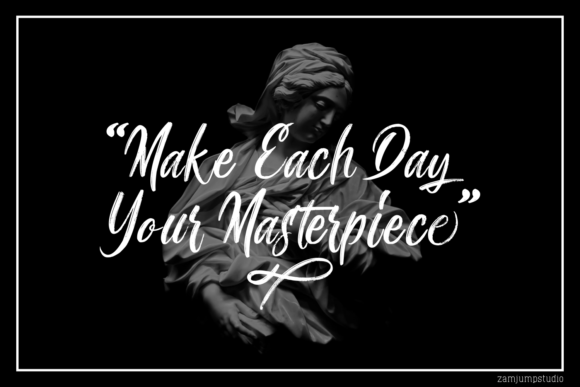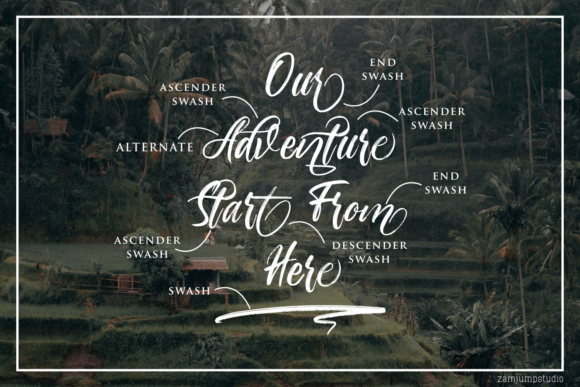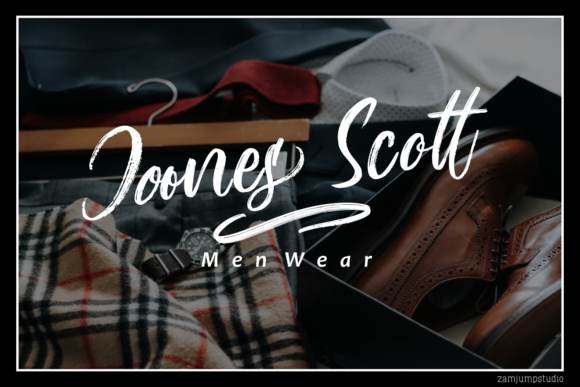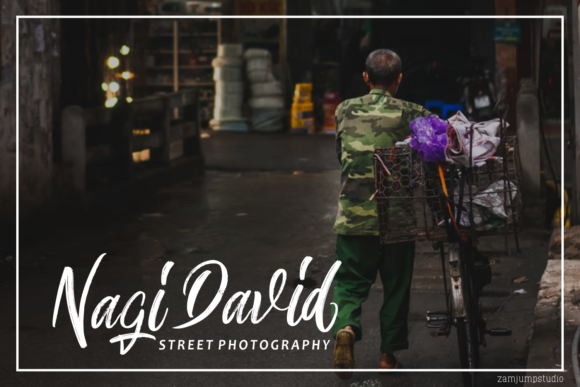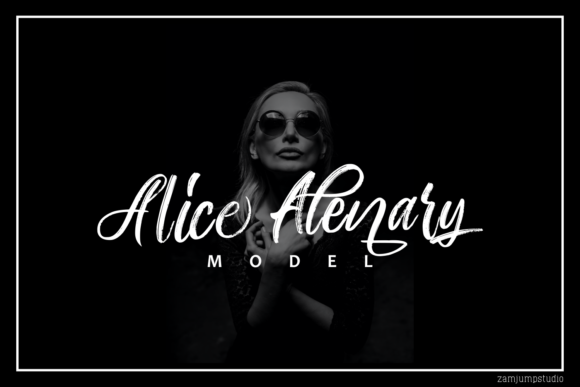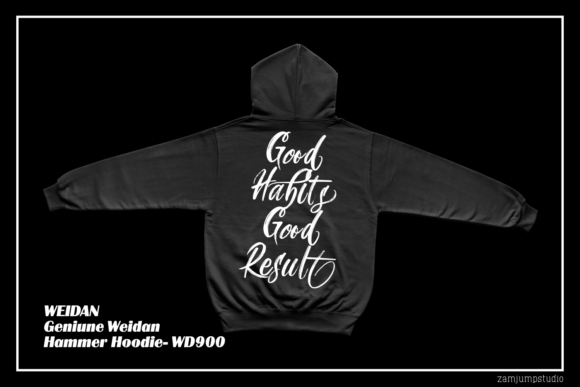
Billy Stranger Font: A Charming Brush-Styled Handwritten Font for Your Designs
Are you a designer or crafter looking for a unique and charming font to elevate your designs? Look no further than the Billy Stranger Font! This beautiful brush-styled handwritten font is perfect for adding a personal touch to your projects, and its endless possibilities will inspire your creativity.
What is Billy Stranger Font?
Billy Stranger Font is a digital font designed to mimic the look and feel of handwritten text. Its brush-styled strokes and charming imperfections give it a warm, organic feel that’s perfect for a variety of design applications. Whether you’re creating invitations, branding materials, or digital content, this font is sure to add a touch of personality to your work.
Key Features of Billy Stranger Font
• Brush-Styled Strokes: The Billy Stranger Font features beautiful brush-styled strokes that give it a unique, hand-painted look.
• Handwritten Imperfections: The font includes charming imperfections that make it look like it was written by hand.
• High-Quality Design: The font is designed with high-quality craftsmanship, ensuring that it looks great in any size or application.
Endless Possibilities with Billy Stranger Font
One of the best things about the Billy Stranger Font is its versatility. Here are just a few ideas for how you can use this font in your designs:
• Invitations and Stationery: Use the Billy Stranger Font to create beautiful, one-of-a-kind invitations and stationery for weddings, parties, and other special occasions.
• Branding and Packaging: Add a personal touch to your branding and packaging with this charming font. It’s perfect for creating labels, logos, and other marketing materials.
• Digital Content: Use the Billy Stranger Font to create engaging digital content, such as blog posts, social media graphics, and email newsletters.
• Crafting and Scrapbooking: This font is also perfect for crafters and scrapbookers who want to add a personal touch to their projects.
In conclusion, the Billy Stranger Font is a charming and versatile font that’s perfect for designers and crafters looking to add a personal touch to their projects. With its brush-styled strokes, handwritten imperfections, and endless possibilities, this font is sure to inspire your creativity and take your designs to the next level.